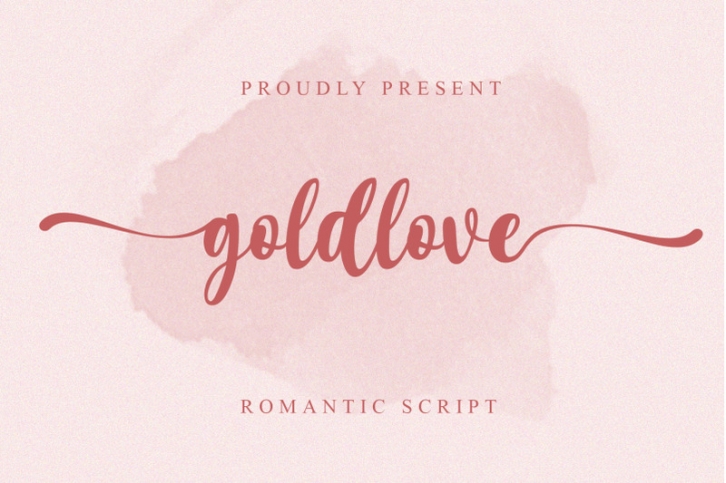
Goldlove - A Romantic Script FONT Download
Goldlove - A Romantic Script Font Download
Goldlove is a beautiful font that is dominated by a symbol of love at the beginning and end of the swash. It looks beautiful on a variety of designs requiring a personalized style, such as wedding invitations, thank you cards, weddings, greeting cards, logos and so on. Goldlove is PUA encoded which means you can access all of the glyphs and swashes with ease!